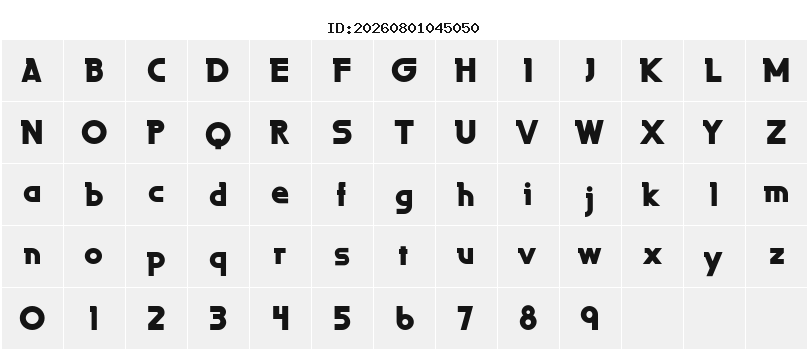
LaPerutaUltraFLF Preview
About LaPerutaUltraFLF.ttf
LaPerutaUltraFLF.ttf is a modern, elegant sans-serif font designed for ultimate readability and visual harmony. Perfect for branding, headlines, web design, and print materials.